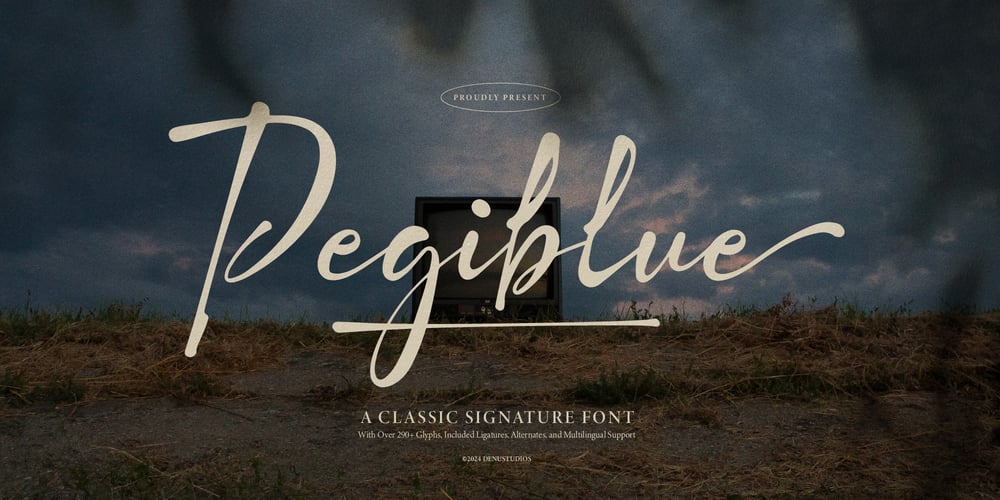
Pegiblue
Pegiblue font
Pegiblue Font Family was designed by Dede Nugraha and published by Denustudio. Pegiblue contains 2 styles and family package options. Pegiblue | Classic Signature Font, from Denustudios, suitable for any projects such as: logos, branding projects, homeware designs, product packaging, mugs, quotes, posters, shopping bags, t-shirts, book covers, name card, invitation cards, greeting cards, label, photography, watermark, special events, and all your other lovely projects that need a Classic Signature Font taste.===========================================================================What’s Included : Regular and Italic Web Font Standard glyphs Alternate and Ligature Works on PC & Mac Simple installations Accessible in the Adobe Illustrator, Adobe Photoshop, Adobe InDesign, even work on Microsoft Word and Other Software. PUA Encoded Characters – Fully accessible without additional design software. Fonts include multilingual support Hope you enjoy with our font!